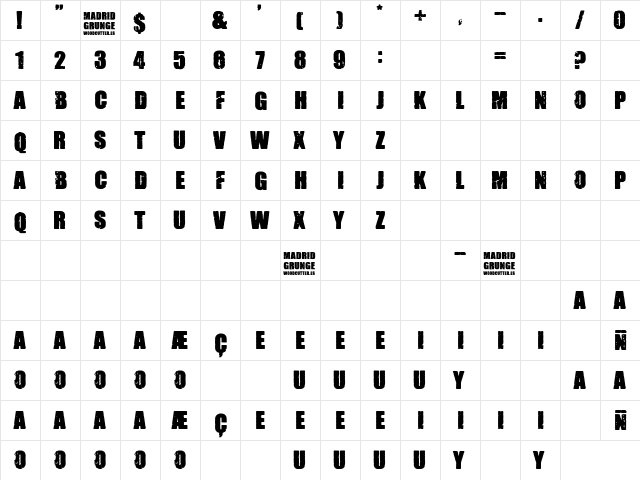
Madrid Grunge Regular
| Designer | Woodcutter Manero |
Design Context for Madrid Grunge Typeface
Madrid Grunge trades polish for personality, using distressed and eroded forms to bring grit and attitude to creative work.
Suited to punk-influenced zines, underground music branding, streetwear, and raw, anti-corporate design.